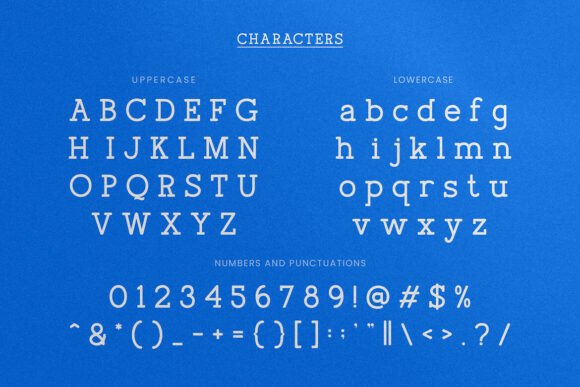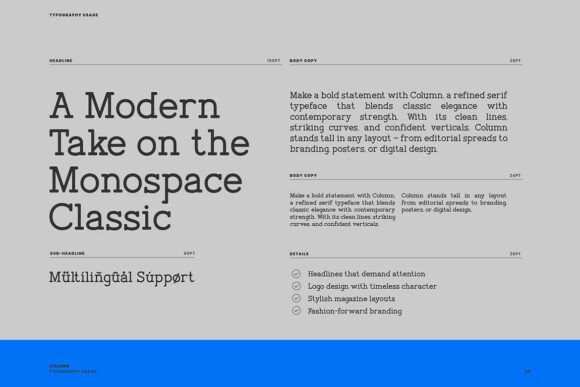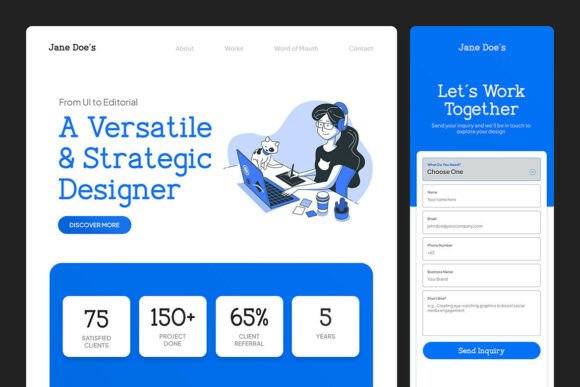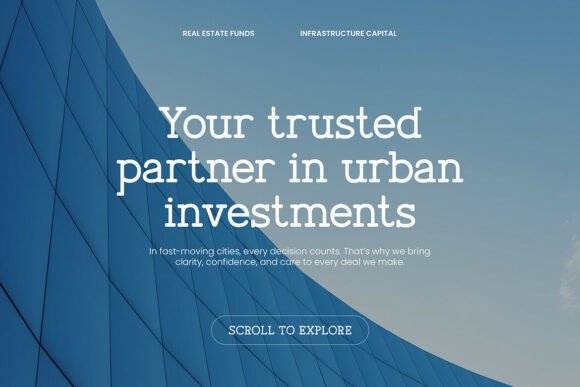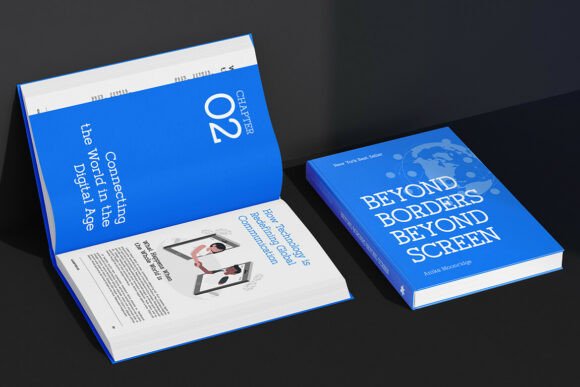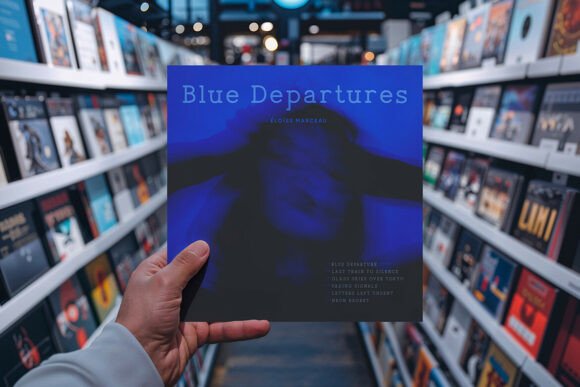
Introducing Column Font: The Modern Monospace Serif for Professionals
In the world of typography, finding the perfect font that balances elegance, clarity, and versatility can be a daunting task. However, for those seeking a modern monospace serif font that excels in both display and editorial use, Column Font emerges as an exceptional choice. Designed with a geometric structure and a consistent rhythm, Column offers a sophisticated feel that caters to professional and modern applications.
Geometric Structure and Consistent Rhythm
Column Font boasts a geometric structure that provides a sense of precision and clarity. Its consistent rhythm ensures that the text flows smoothly, making it a joy to read. This harmonious blend of form and function makes Column an ideal choice for tech, branding, or interface design projects where readability and aesthetics are paramount.
Balancing Corporate Elegance and Minimalist Charm
One of the standout features of Column Font is its ability to strike a balance between corporate elegance and minimalist charm. This balance makes it an incredibly versatile font, suitable for a wide range of applications, from professional branding to editorial content. Whether you’re designing a website, crafting a marketing campaign, or creating a product interface, Column Font provides the perfect blend of sophistication and simplicity.
Multilingual Support and Global Usability
In today’s globalized world, having a font that supports multilingual characters, punctuation, and symbols is essential. Column Font rises to the challenge by offering extensive language support, ensuring that it can be used in projects aimed at a global audience. This feature, combined with its clarity and readability, makes Column an excellent choice for international brands and digital products.
Sophistication without Sacrificing Readability
The structured yet soft character of Column Font gives it a sophisticated feel that is both elegant and approachable. This unique combination ensures that the font remains highly readable, even at smaller sizes, without losing its luxurious appeal. As a result, Column is perfect for use in both body text and headings, providing a cohesive look across all your design elements.
Applications of Column Font
Column Font’s versatility makes it suitable for a variety of applications, including:
- Tech and Software Design: Its modern and precise feel makes it ideal for tech-related projects, including software interfaces and documentation.
- Branding and Marketing: The font’s corporate elegance and minimalist charm make it perfect for branding guidelines and marketing materials.
- Editorial and Publishing: Column’s readability and sophisticated feel make it suitable for editorial content, such as magazines, journals, and books.
- Interface Design: Its geometric structure and clarity make it an excellent choice for UI elements, including apps, websites, and digital platforms.
Column Font represents a significant advancement in modern typography, offering a unique blend of geometric precision, elegance, and versatility. Its design caters to the needs of professionals seeking a font that is both sophisticated and highly readable. With its extensive language support and adaptability across various design applications, Column Font is poised to become a go-to choice for designers and crafters worldwide.
Whether you’re embarking on a new design project or looking to refresh your brand’s typography, Column Font is an exceptional option that promises to elevate your work with its modern monospace serif style.